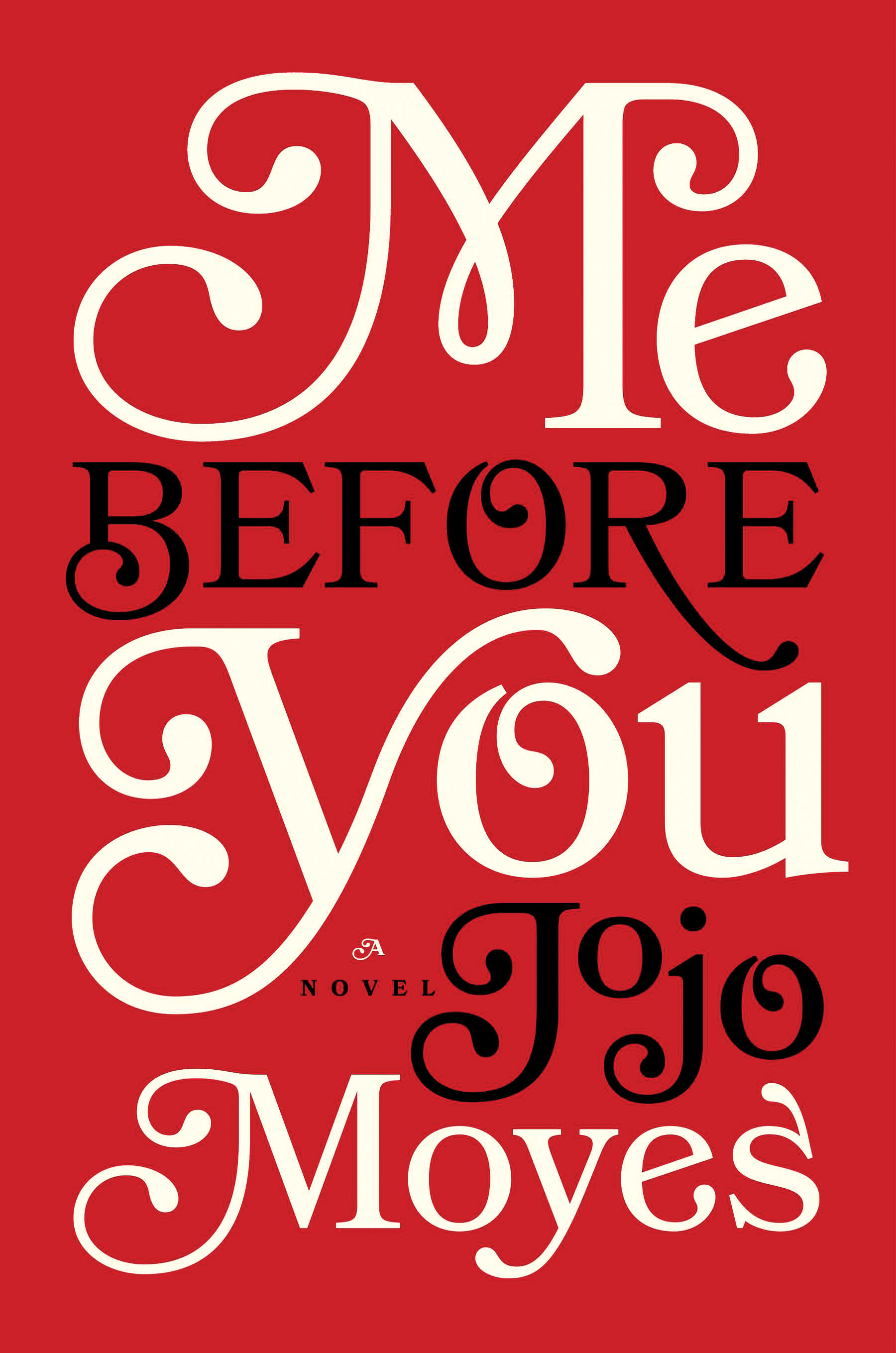
Me Before You Font
BookMe Before You is a 2012 novel by British author Jojo Moyes. It tells the story of Lou Clark, caregiver of Will Traynor, a wealthy young man who becomes paralyzed after a motorcycle accident. The novel explores the close bond between the two, as they navigate the challenges of his disability and her uncertain future.
The book title on the cover is written in Bookmania Regular. The stylistic alternate letters present in the typeface can be used to create the majority of the letters in the title. With all the features one would expect in a contemporary digital font family, such as OpenType features, swashes, and stylistic sets, Bookmania by Mark Simonson is a resurrection of Bookman Oldstyle (1901) and the Bookmans of the 1960s.